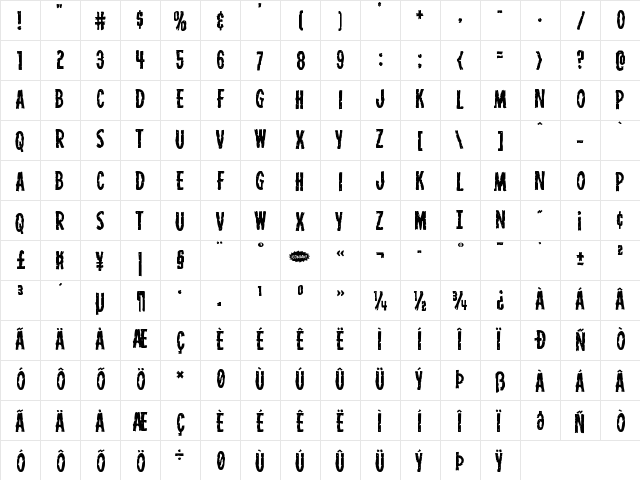
Carnival Corpse Staggered Regular
Design Context for Carnival Corpse Staggered Typeface
Carnival Corpse Staggered is a composed and adaptable typeface that performs quietly and consistently across a wide range of design contexts.